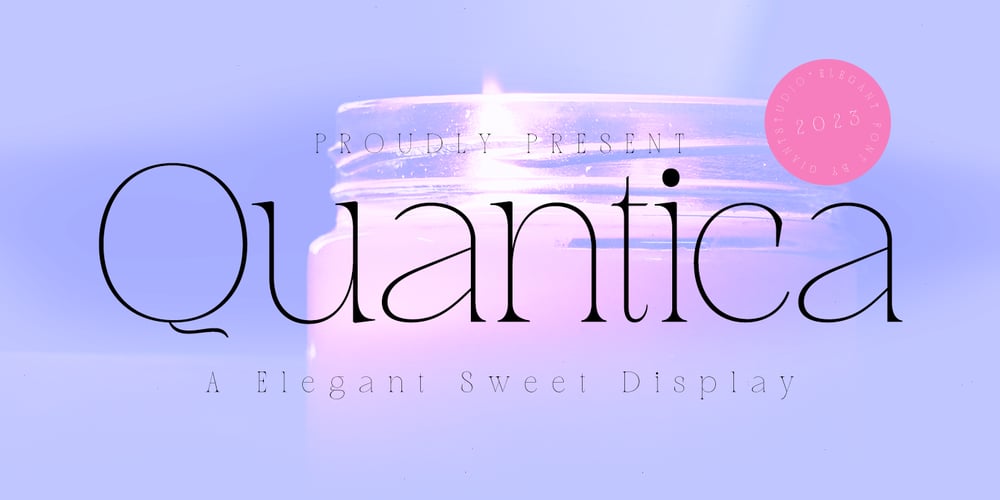
Quantica Font Family was designed by Afri Giani and published by Gian Studio. Quantica contains 2 styles and family package options. Quantica is to be perfect for logos, branding, greetings, social media themes, and wedding invitation designs. It is also a great typeface for titles due to its smooth design and eye-catching appearance.Available Fonts:. Multilingual.. Ligatures.If you have any questions don’t hesitate to contact me!Thank you,